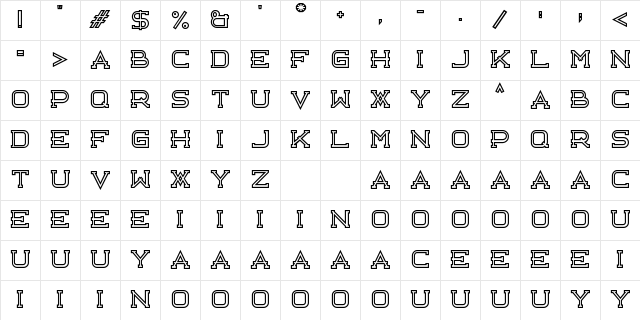
Libercity Outline is built around its visual character rather than neutral utility - its distinctive forms are designed to make an impression at display sizes.
Font Pairing: Pair with a clean neutral sans-serif for body copy to let Libercity Outline's character lead without overwhelming the composition.
Pro Tip: Use Libercity Outline exclusively at display sizes - it was designed to be seen, not read at length. Let a neutral companion handle body copy.